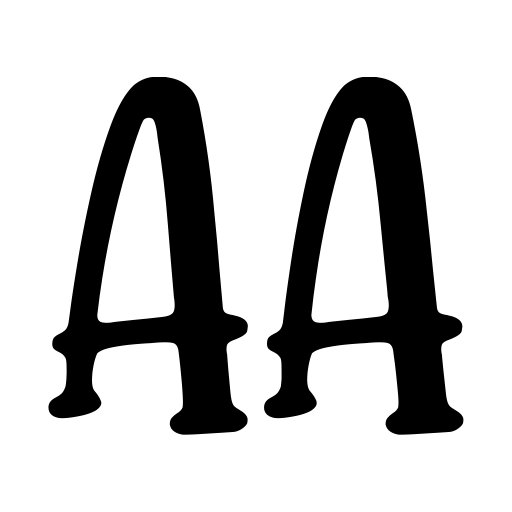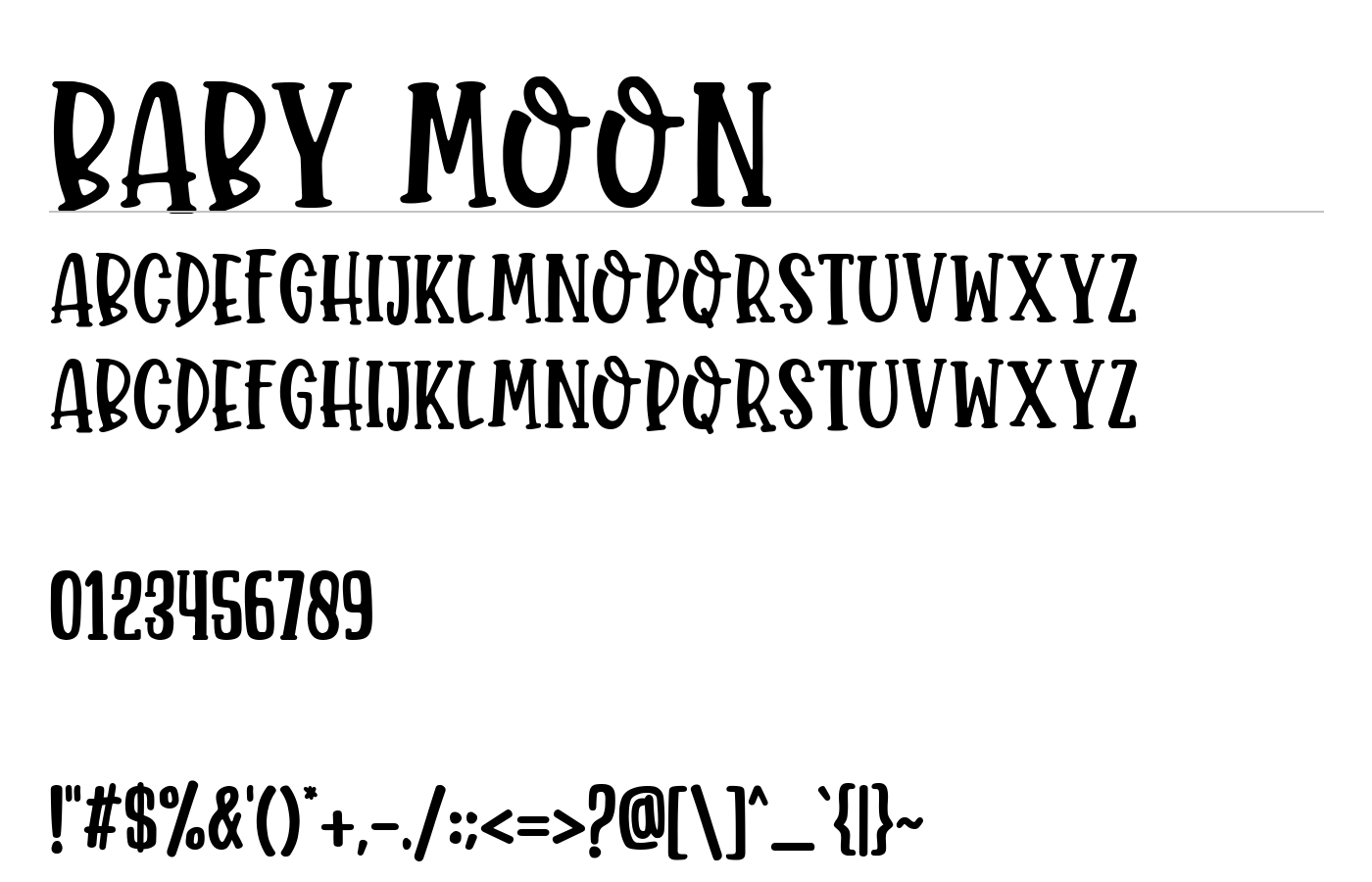
Baby Moon is a playful, tall sans serif font with rounded, friendly letterforms that have a hand-drawn feel. Its compact width, consistent stroke weight, and unique character shapes give it a charming and approachable personality, perfect for casual, fun branding or children’s products. This font works well in logos, headlines, and packaging where a whimsical, lively tone is desired.
Baby Moon Font
About Baby Moon Font
| Font family | Baby Moon Font |
| Designer | Lia Ari Wijayanti |